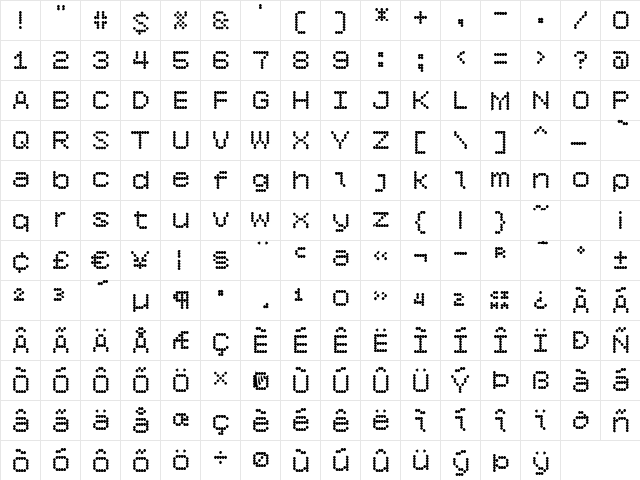
6x7oct ExtraBold
| Foundry | YouWorkForThem |
| Designer | Michael Cina |
Design Context for 6x7oct Typeface
6x7oct takes a measured approach to typography — its balanced proportions and neutral character make it a reliable workhorse for both digital and print work. Its bold stroke weight gives it real presence on the page.